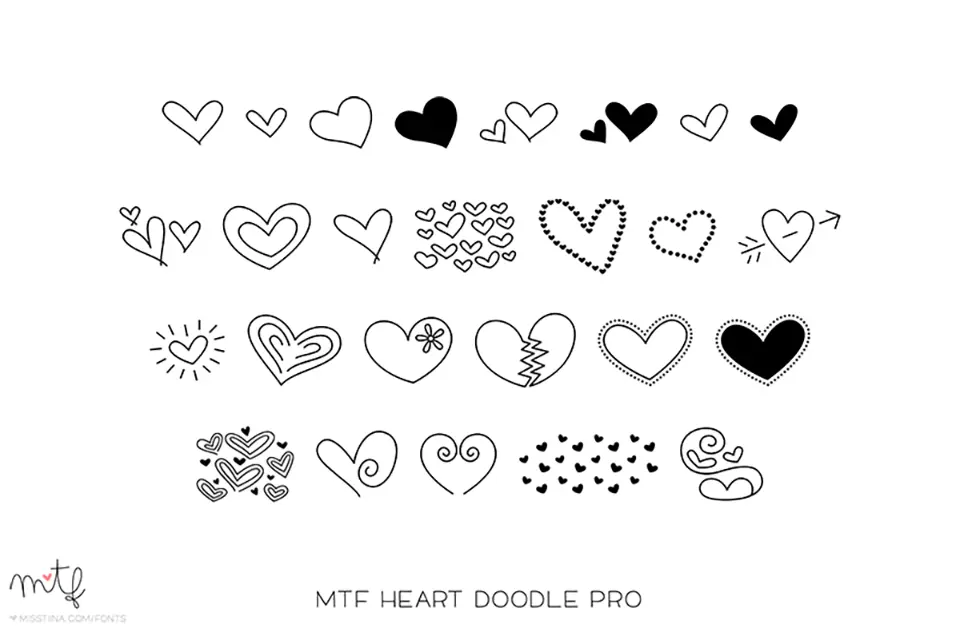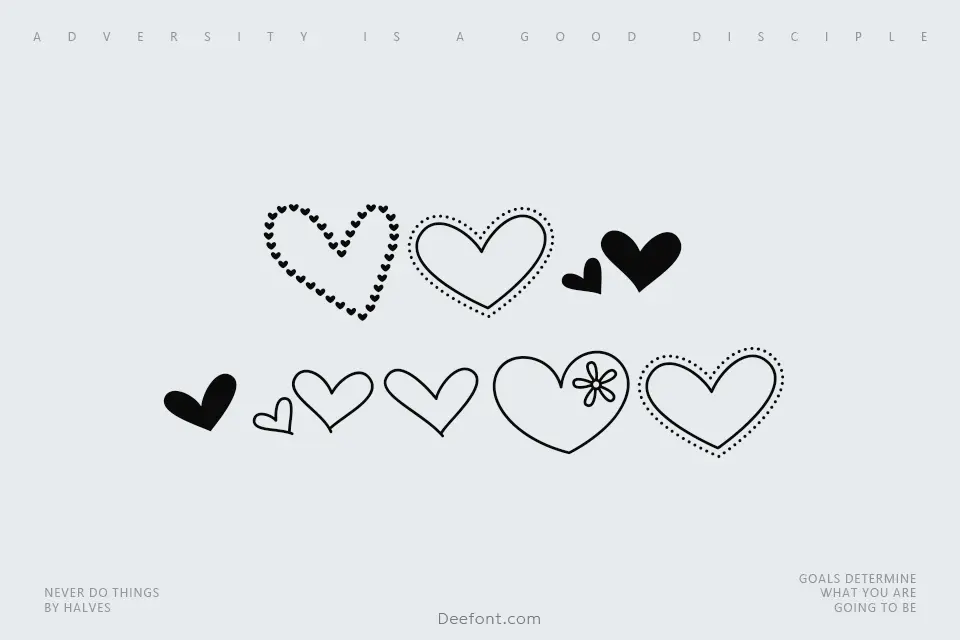
MTF Heart Doodle Font
The MTF Heart Doodle Font is a charming decorative typeface designed by Miss Tiina, perfect for adding a touch of romance and whimsy to Valentine’s Day projects, wedding invitations, love-themed designs, or any creative endeavor celebrating affection. This dingbat font features a collection of playful heart-shaped symbols, intricate floral accents, and sweet doodles, offering a versatile toolkit for crafting eye-catching graphics. Its hand-drawn aesthetic exudes warmth and nostalgia, making it ideal for DIY crafts, digital art, greeting cards, and social media posts.